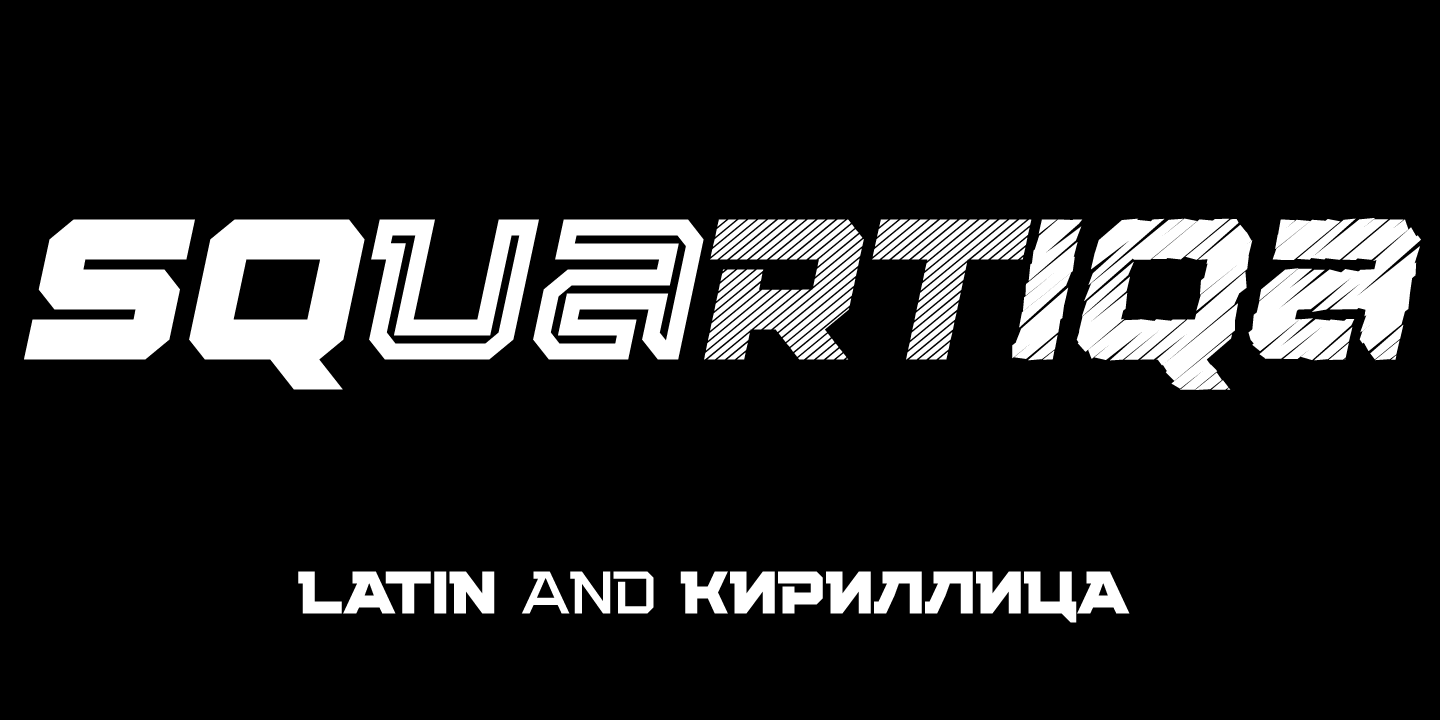
This geometric typeface is perfect for modern architecture firms, minimalist design studios, geometric art galleries, contemporary furniture brands, abstract art exhibitions, modular construction companies, cubic design concepts, mathematical education platforms, precision engineering services, systematic organization tools, grid-based layouts, and structured lifestyle brands. The font's angular design makes it ideal for projects that celebrate geometric precision, mathematical beauty, and the systematic order of square-based design principles with clean structural elements.
Squartiqa 4F Font is exciting because it embodies geometric precision and systematic order through its square-based letterforms and mathematical character structure. The font's angular edges and modular proportions create an atmosphere of organization, precision, and structured thinking, making it perfect for brands that want to convey clarity, system efficiency, and the compelling appeal of geometric harmony. Its systematic personality ensures instant organization while maintaining excellent readability across various architectural applications.
The Squartiqa 4F Font family includes multiple geometric variations: Light Grid, Regular Square, Medium Module, Bold Structure, and Black Framework weights, each available in standard and condensed versions. Special architectural editions feature geometric alternates, mathematical symbols, and structural ornaments that enhance the font's systematic appeal, providing designers with comprehensive tools for creating authentic geometry-focused communications.
Structure perfect geometric design with Squartiqa 4F Font Free Download – a typeface that represents mathematical precision and systematic organization. Whether you're developing architectural branding, geometric art materials, or systematic design campaigns, this font delivers the structured presence and geometric clarity your projects need while ensuring exceptional performance and mathematical impact across all geometric and architectural applications.